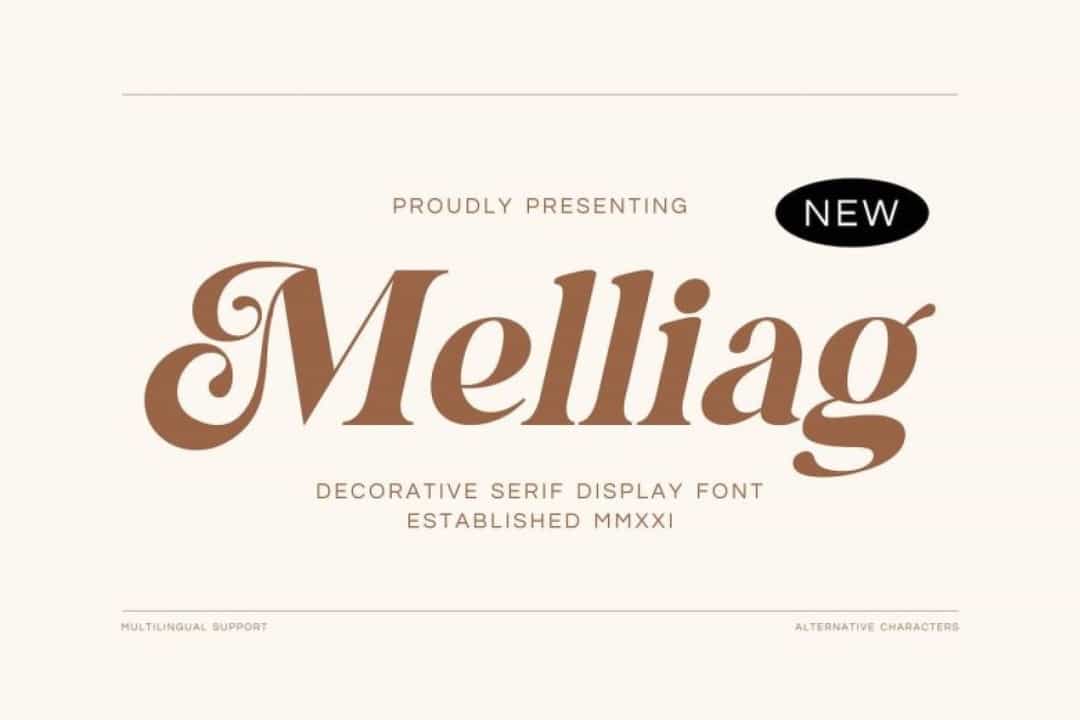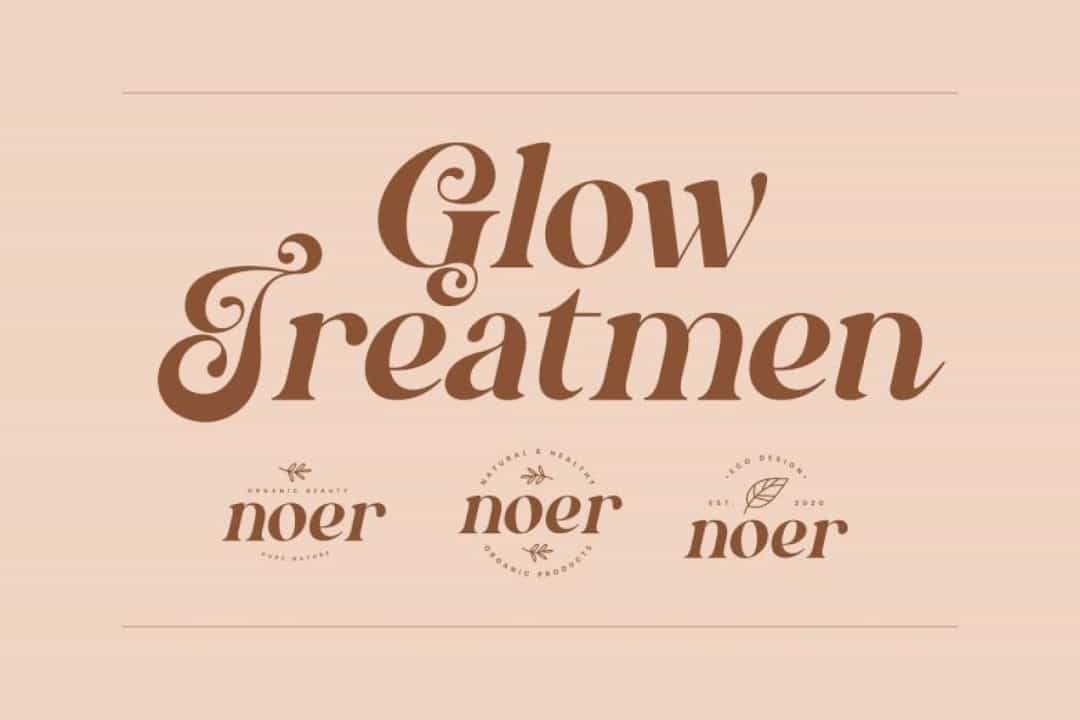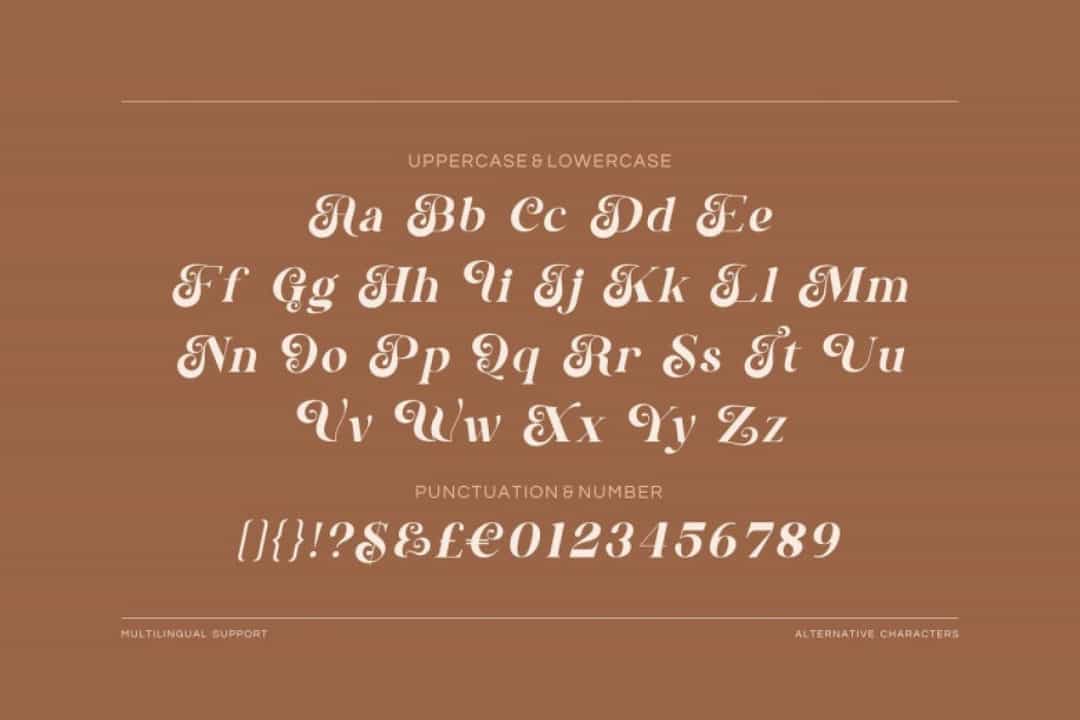
Discover Melliag Font, part of the Serif Display collection—a versatile and unique font perfect for adding a personal touch to your projects. Download it for free and enjoy crafting designs with style, from invitations to social media posts. This font is available exclusively for personal use, giving you the freedom to create without limits. Unlock your creativity with Melliag Font today!
Melliag Serif font is perfect for use in various projects, such as branding and logo designs for photographs invitations watermarks advertising products wedding invitations stationery labels special event product packaging labels etc.